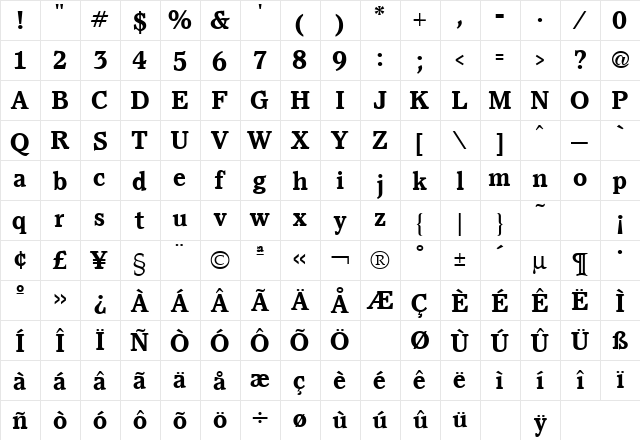
Pacella Bold Font Preview
Pacella Bold
Pacella Bold Font Details
Design Context for Pacella Typeface
Pacella is a composed and adaptable typeface that performs quietly and consistently across a wide range of design contexts. The heavy weight commands attention and anchors typographic hierarchies.